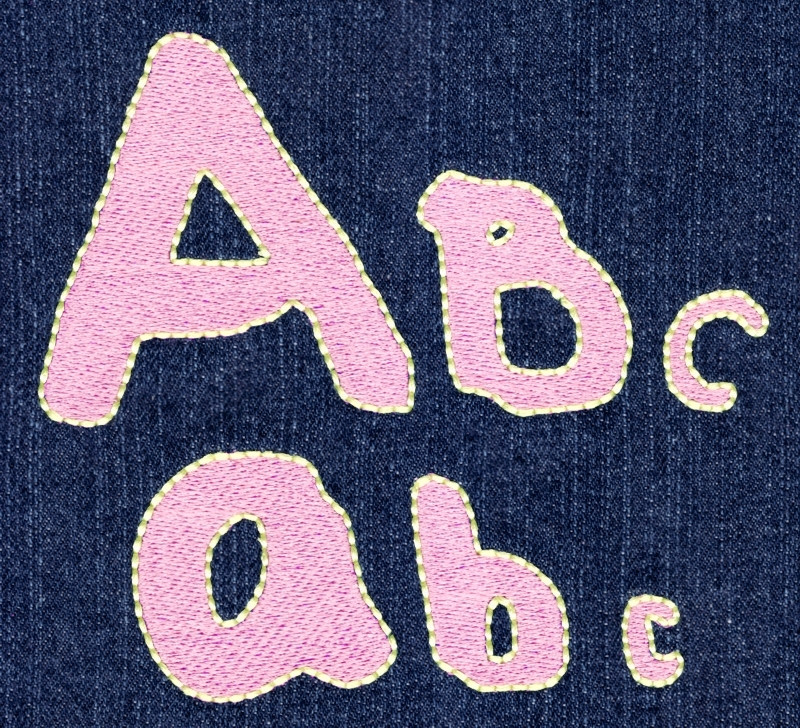
367 Pink Lemonade Fill & Floss Font
Pink Lemonade Fill & Floss Font comes in 1", 2" & 3" heights based on the capital "A". Each size includes uppercase letters, lowercase letters numbers and four punctuation marks; finished in fill stitch with Floss Stitch outlines. Floss Stitch stitches out on all embroidery machines using standard embroidery thread.